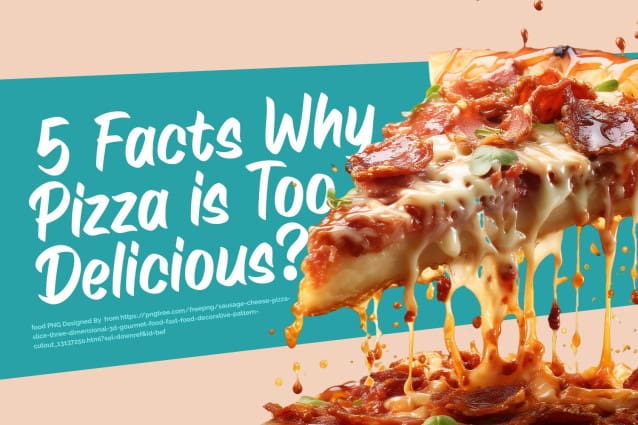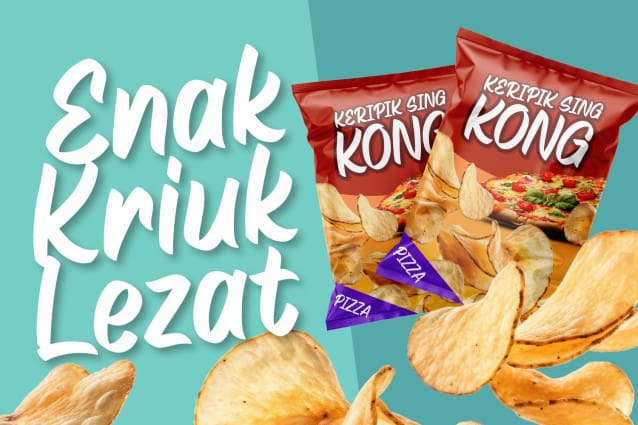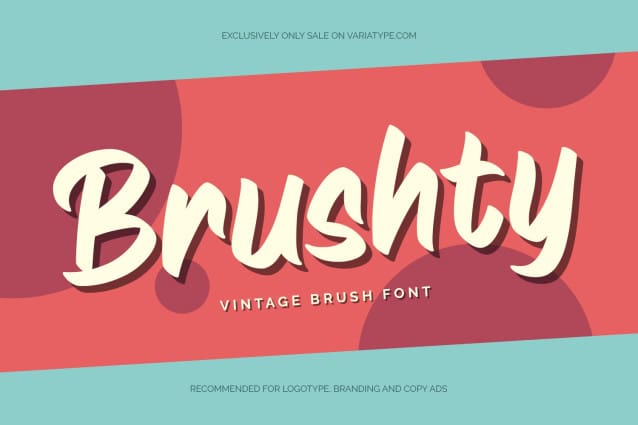
Brushty Font
Brushty Font comes from an inspiration of vintage sign painter lettering style, perfectly good to use for headlines, printed on t-shirts, hoodies, packaging, posters, advertisements, branding, and much more.